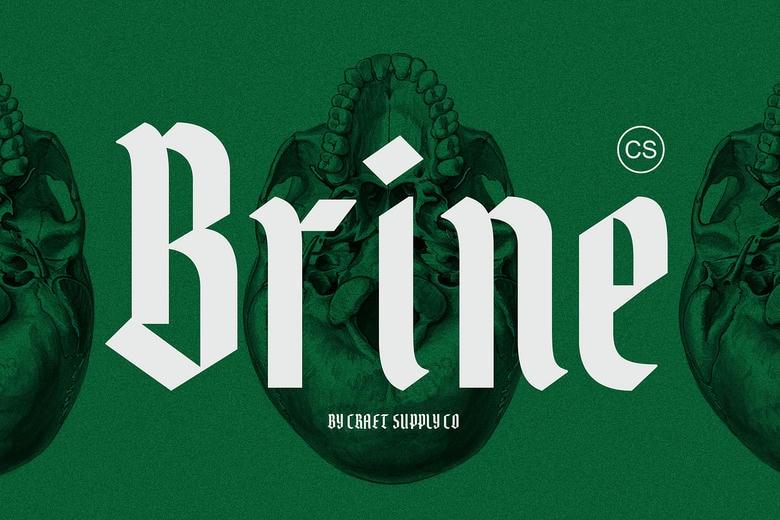
CS Brine Font
CS Brine is an exquisite blackletter display font that does what it takes to grab the attention with tasty stickerish lettering and sharp angles. Every person is depicted as having some paintings that resemble ornaments as the blackletter typography. Beneath this, is a font that represents idealistic differentiation and gives people the feel of a classic design environment where they can feel updated and decorated into an era of class and artisanship.
Prescriptive and Flowing The impression, which CS Brine gives is clearly both prescriptive and flowing and has associations with the Middle Ages writing style. Its propagation is assertive and gets the attention of everyone while the details presented are rather fancy and are suitable for books that want to project an air of class and panache. In this way, the application of expressive and complex features guarantees this font’s memorability in any context.
Suitable for Different Purposes In many design projects, this blackletter font is suitable for use in designing invites & cards for business-wise and cultural celebrations, designing logo for companies that like to signify their ethnic background and fireworks designs for posters that have a little touch of antique and gothic style. Whether you are designing a one of a kind formal wedding invitation or simply making an intriguing poster for an event, CS Brine has the potential to be contextual while still staying loyal to its inherent\’ strengths.
CS Brine Blackletter Font